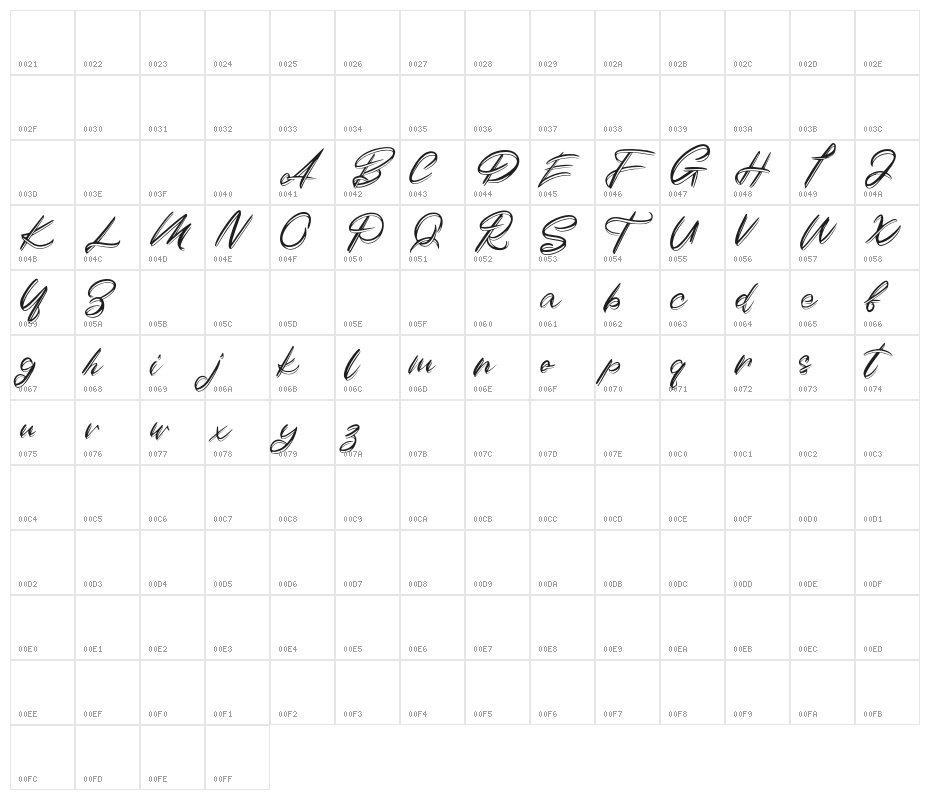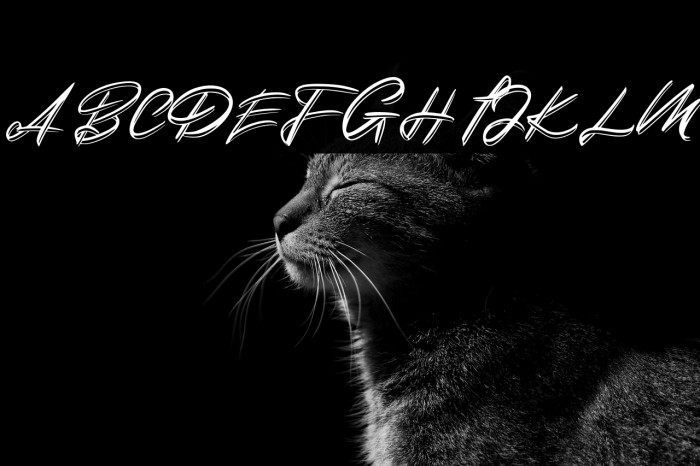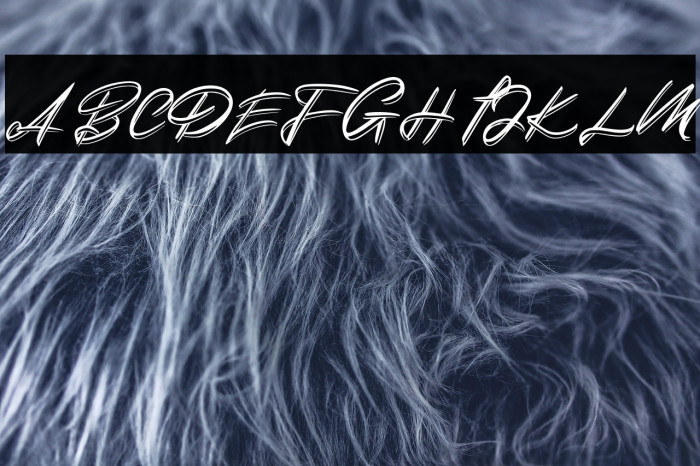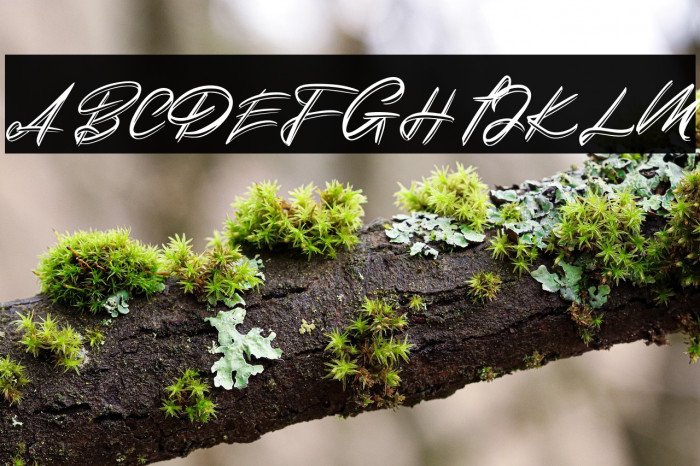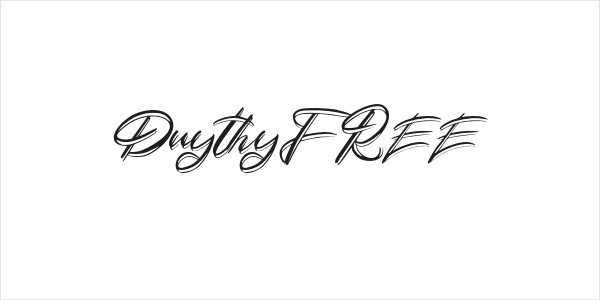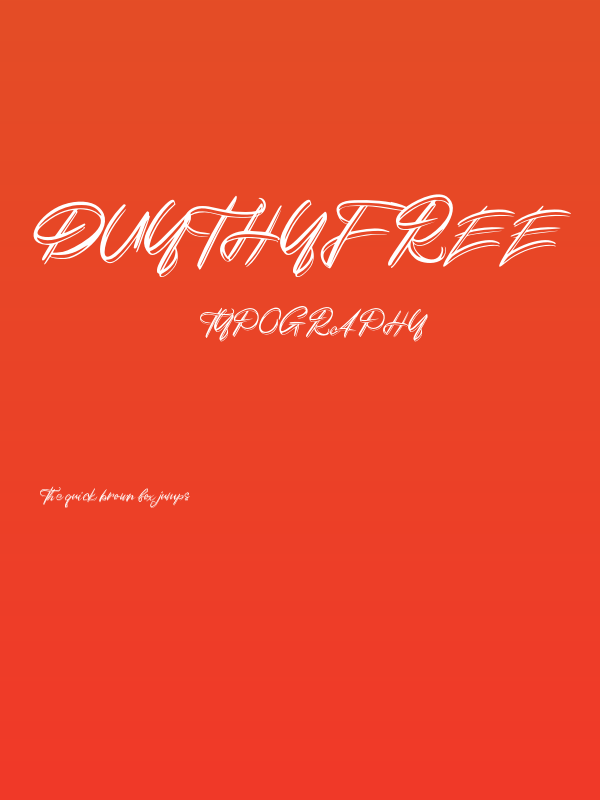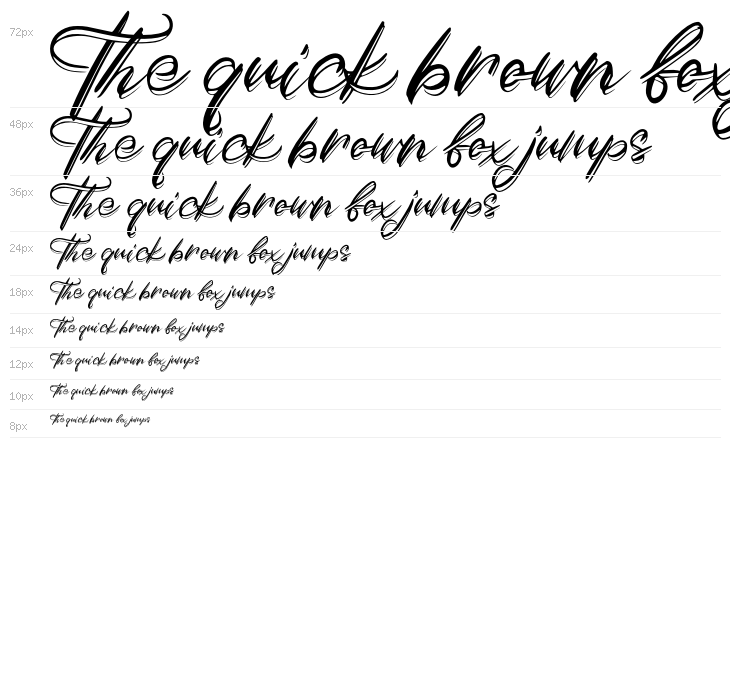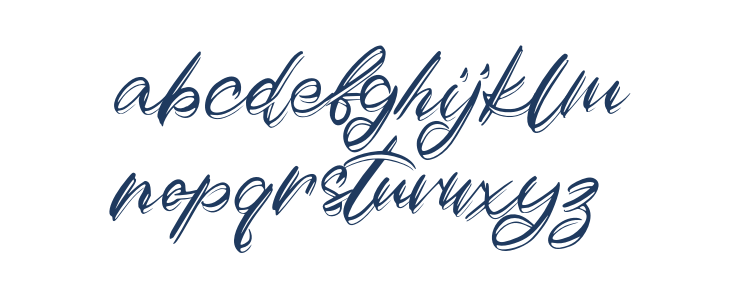
DuythyFREE Font
DuythyFREE Description
This font features a dynamic and expressive script style, characterized by its fluid, cursive letterforms that convey a sense of elegance and movement. The strokes are bold and sweeping, with a high contrast between thick and thin lines, adding to its dramatic flair. The characters are closely spaced, enhancing the connected, flowing appearance typical of handwritten scripts. The uppercase letters are particularly ornate, with flourishes and loops that add a decorative touch. This font is ideal for projects that require a personal, artistic feel, such as invitations, greeting cards, and branding materials.
| Use Case | Logos, Headlines, Artistic projects |
| Proposed Projects | Ideal for invitations, greeting cards, branding, and artistic projects. |